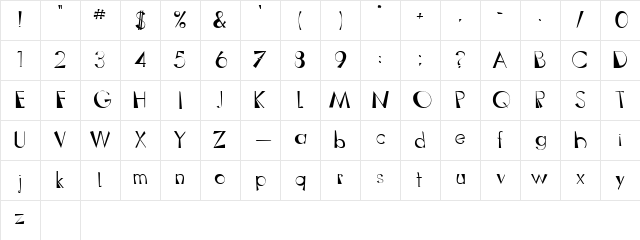
Outhaus A Free Font
Outhaus A
Style: A
Design Context for Outhaus
Outhaus is a composed and adaptable typeface that performs quietly and consistently across a wide range of design contexts.